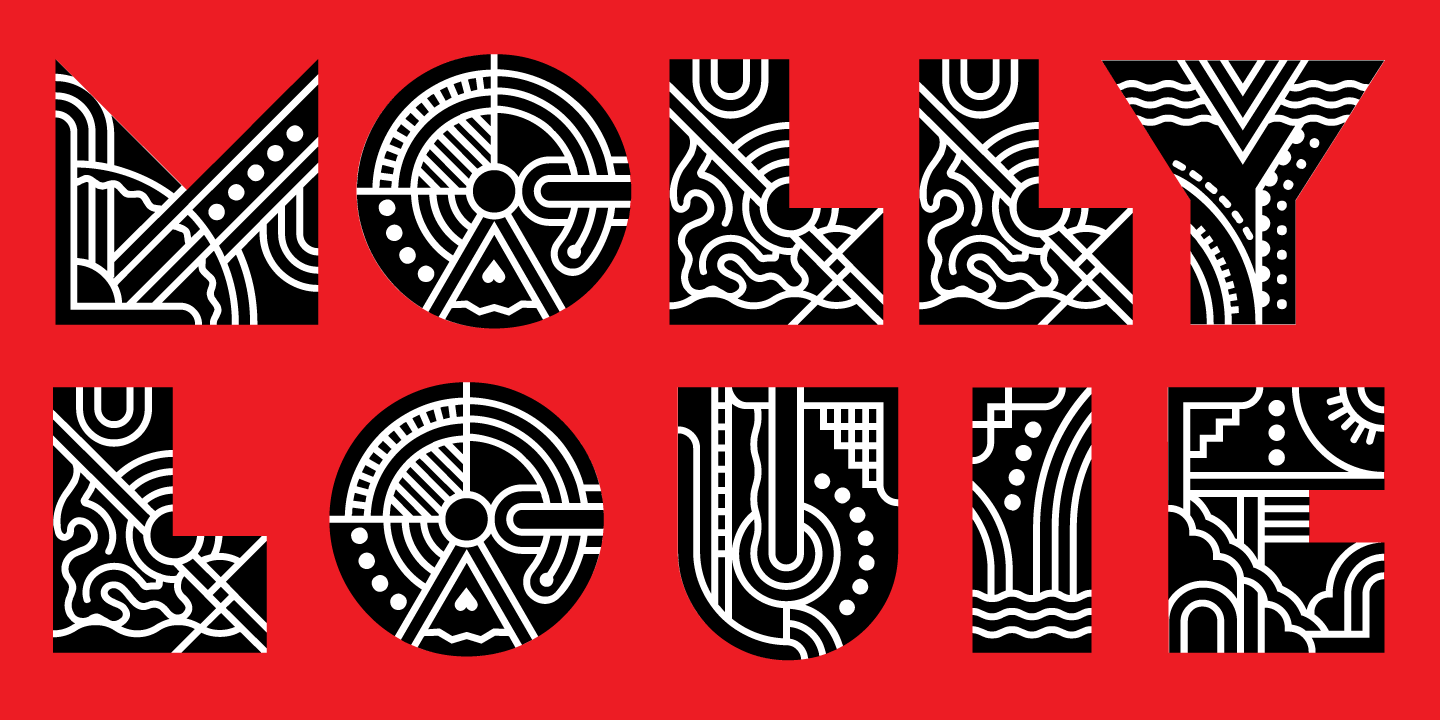
Molly Louie Font is perfect for children's boutique branding, handmade toy packaging, playful nursery decor signage, kid-friendly restaurant menus, family photography studio logos, whimsical greeting card designs, creative daycare center materials, and charming children's book illustrations.
Molly Louie Font is exciting because it captures the innocent joy and boundless imagination of childhood with its playfully crafted letterforms that seem to skip and giggle across the page like children at recess. The typeface embodies the sweet spirit of youthful wonder and genuine happiness, creating an immediate sense of warmth and approachable charm that makes both children and adults smile with nostalgic delight.
Molly Louie Font family includes Regular, Bold, Light, and Playful variants, complemented by adorable dingbats and child-friendly decorative elements, offering designers delightful typography tools for creating communications that celebrate the magic of childhood while maintaining clarity for young readers and their families.
Whether you're developing a children's brand identity, designing family-oriented marketing materials, or creating educational content for young learners, Molly Louie Font Free Download provides unmatched sweetness and child-friendly appeal. This endearing typeface perfectly balances playful personality with educational functionality, ensuring your communications resonate with both children and parents who appreciate thoughtful design that honors childhood development. The font's gentle character variations and joyful rhythm make it particularly effective for brands that prioritize child safety, creative learning, and the kind of nurturing environment that helps young minds flourish. Child development professionals consistently choose Molly Louie Font when projects require typography that communicates safety, fun, and the kind of genuine care that defines quality children's products and services, making it indispensable for educational toy branding, family service marketing, and any application where gentle typography can create welcoming spaces that celebrate the precious gift of childhood and support the important work of raising confident, creative, and happy children.